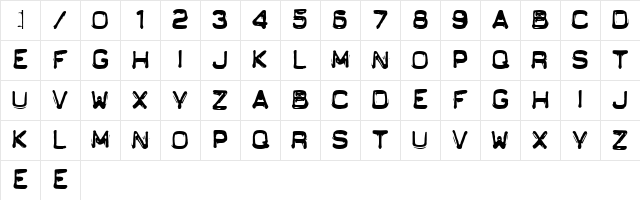
KWALITEIT Regular
Design Context for KWALITEIT
KWALITEIT is a composed and adaptable typeface that performs quietly and consistently across a wide range of design contexts.